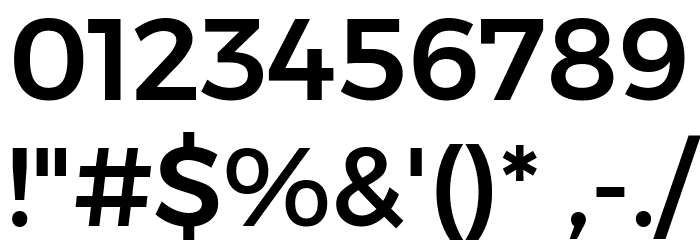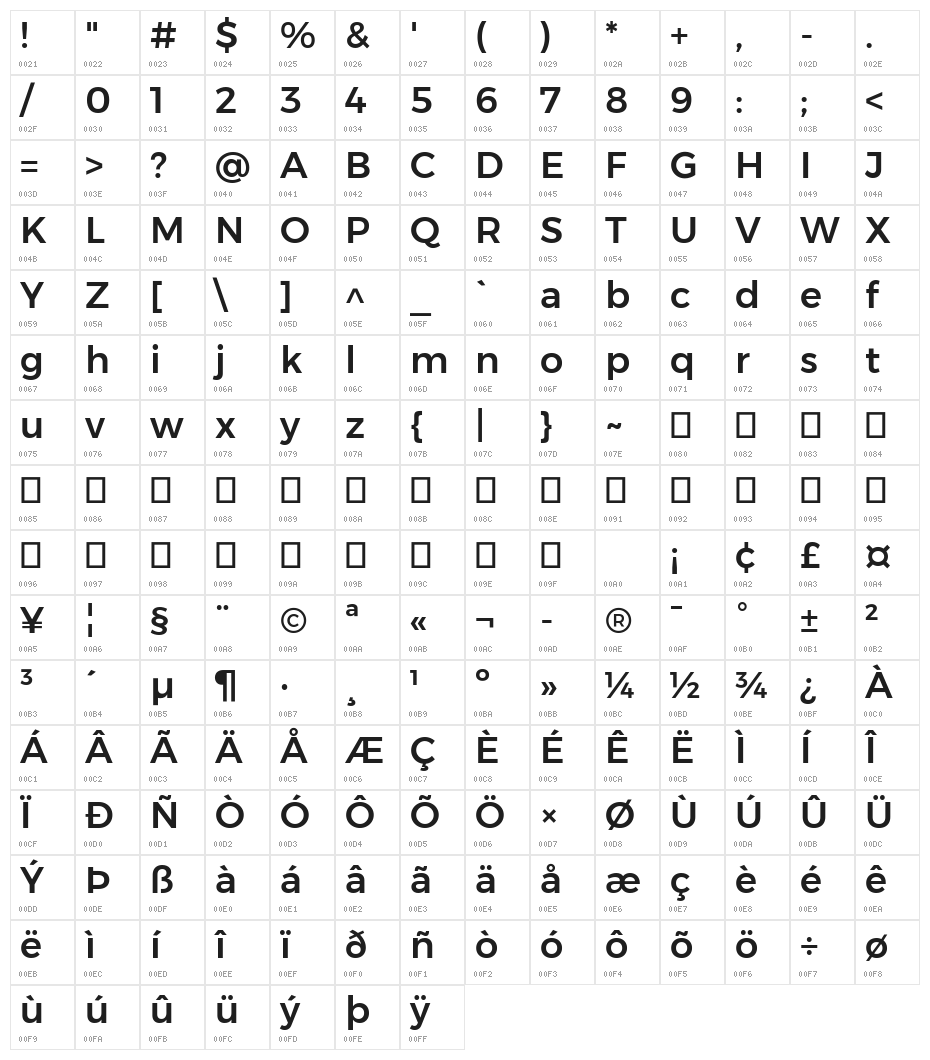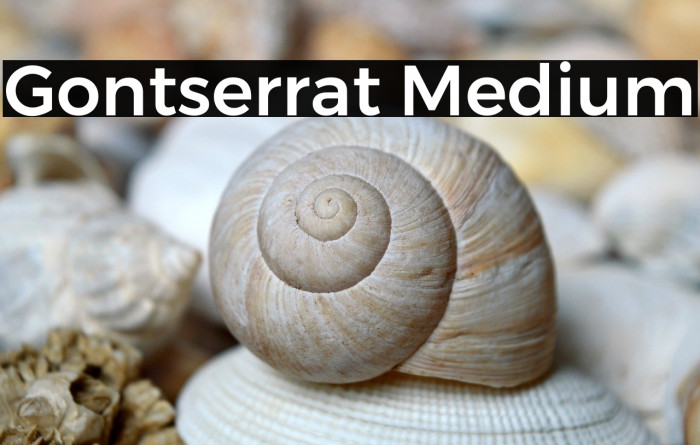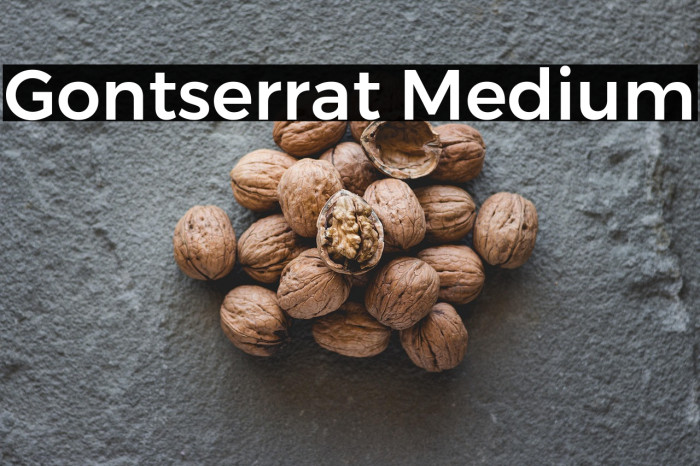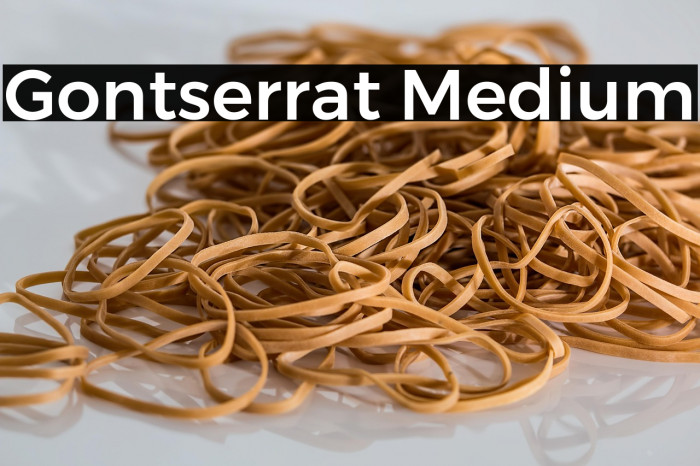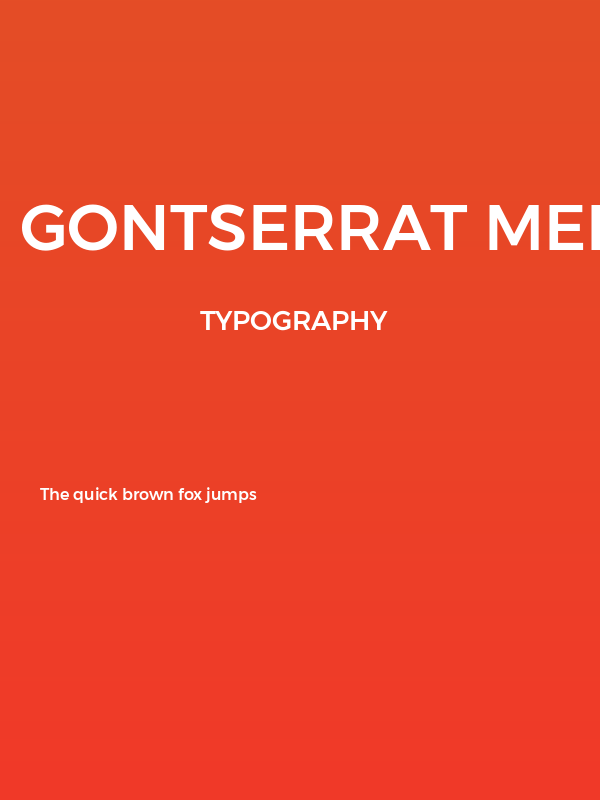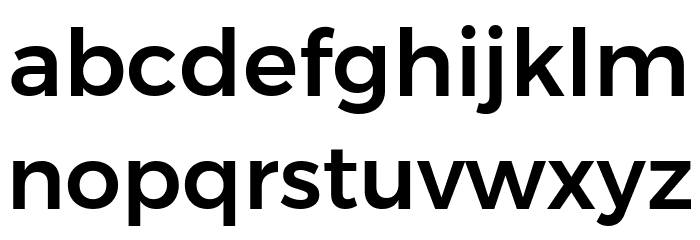
Gontserrat Medium Font
Gontserrat Medium Description
This font features a clean and modern sans-serif design, characterized by its geometric shapes and balanced proportions. The uppercase letters are bold and assertive, while the lowercase letters maintain a friendly and approachable feel. The numerals are clear and easy to read, making them suitable for various applications. Special characters are well-defined, adding versatility to the font. The overall appearance is sleek and contemporary, making it ideal for digital and print media.
Use CaseHeadlines, Body text, Logos
Proposed ProjectsIdeal for branding, web design, advertising, and editorial projects.